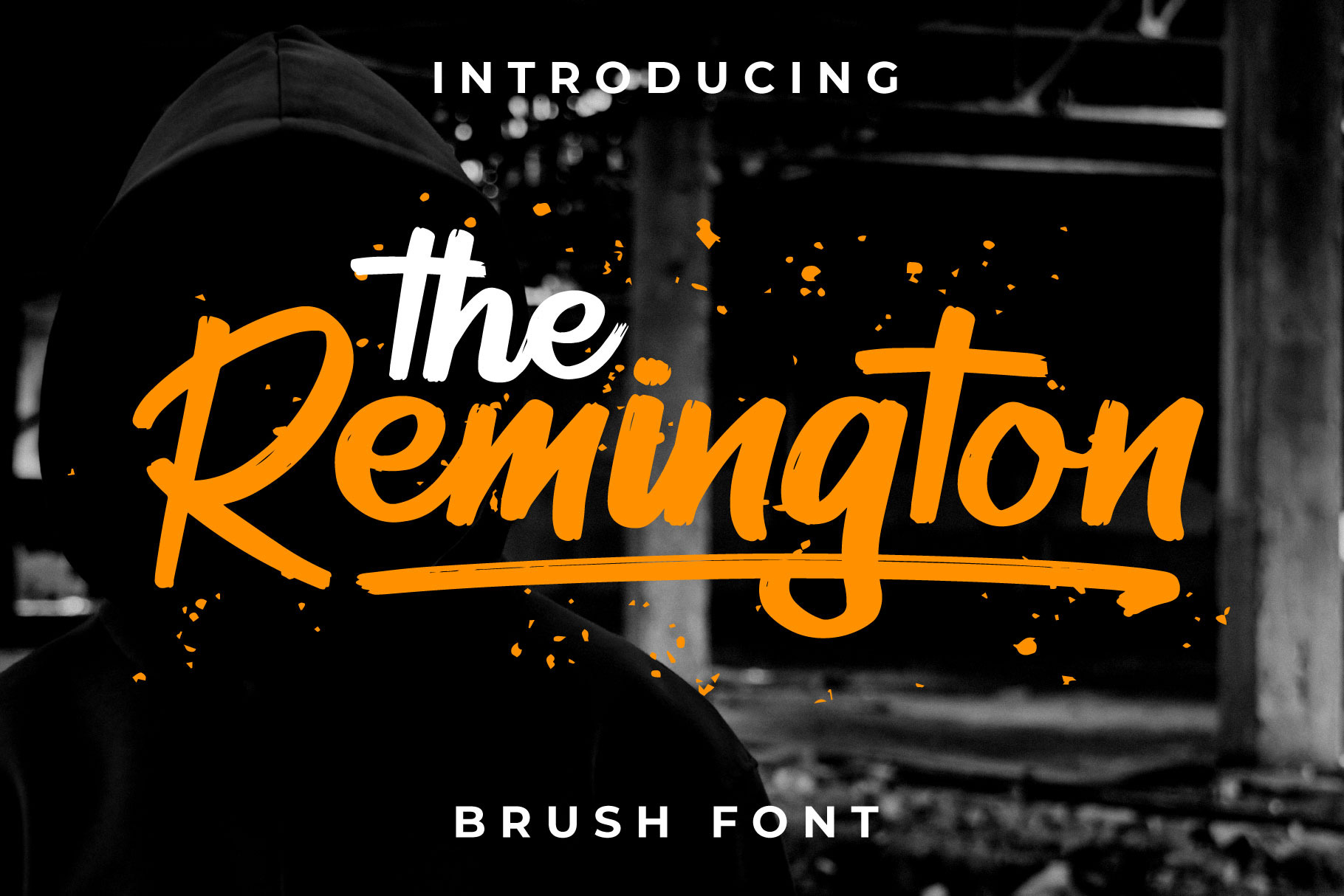
Remington Brush Font
Introducing Remington a stylish Rough Brush Font With Urban Style that will stands out from the crowd! apparel design, label, and many more.! This has many opentype features like ligature, and swash